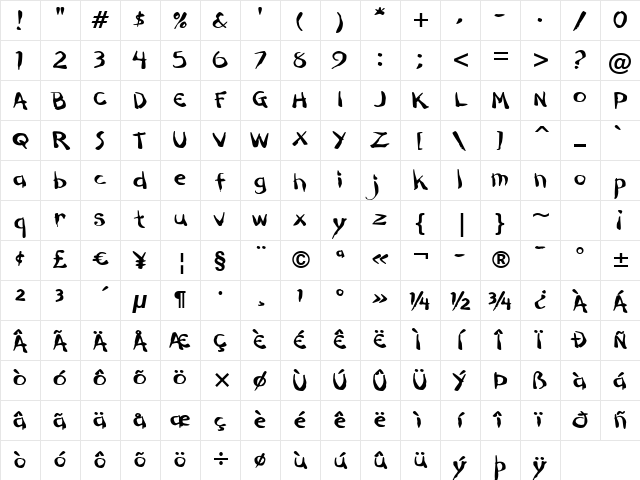
Dark Half BTN Ext Regular Free Font
Dark Half BTN Ext Regular
Design Context for Dark Half BTN Ext
Dark Half BTN Ext is a composed and adaptable typeface that performs quietly and consistently across a wide range of design contexts.